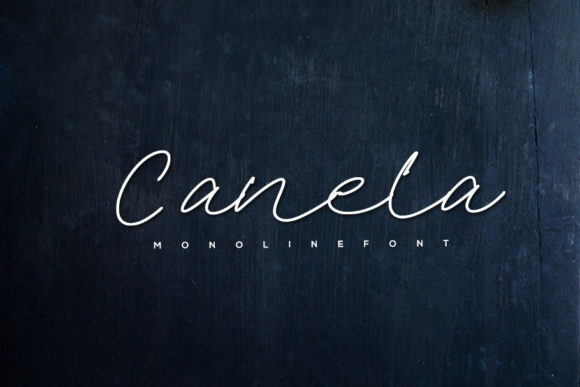
Canela: The Elegant Handwritten Font That Elevates Your Designs
Canela is a delicate, elegant, and flowing handwritten font that brings a touch of sophistication to any design. Its well-balanced characters and smooth curves make it a versatile choice for a wide range of creative projects. Whether you're designing a logo, crafting a social media post, or writing a personal letter, Canela adds a unique charm that stands out.
Why Choose Canela?
Canela's beauty lies in its simplicity and elegance. Unlike more rigid or formal fonts, Canela mimics the natural flow of handwriting, giving your text a personal and approachable feel. This makes it ideal for situations where you want to convey warmth, creativity, or individuality.
Its clean lines and balanced structure ensure readability without sacrificing style. This balance is especially important when you need your message to be both visually appealing and easy to understand.
Perfect for Personal Projects
If you're working on a personal project like a wedding invitation, birthday card, or journal, Canela can transform your work into something truly special. Imagine sending out a handcrafted invitation with Canela as the main font. It instantly adds a sense of care and thoughtfulness that printed invitations often lack.
Even if you're just writing in a notebook or creating digital art, using Canela can help you express yourself more creatively. It’s not just about looking good—it’s about feeling good while you create.
Professional Use Cases for Canela
Canela isn't just for personal use. Many professionals have found it useful in their work. For example, marketers often use it in branding materials, such as logos, taglines, or promotional content. Its soft appearance helps create a friendly brand image that resonates with customers.
Freelancers and designers may also appreciate how Canela works well with other fonts. It pairs nicely with sans-serif fonts for contrast, making it a great choice for headings or call-to-action buttons. When used sparingly, it can draw attention without overwhelming the reader.
Bloggers and content creators can benefit from using Canela in their website headers or newsletter designs. It adds a touch of personality to their content and helps build a stronger connection with their audience.
Educational and Lifestyle Applications
Teachers and educators might find Canela useful for creating visually engaging lesson plans or classroom materials. Using it in titles or bullet points can make information more digestible and enjoyable for students.
For lifestyle bloggers or influencers, Canela can enhance the aesthetic of their posts. Whether it's a recipe blog, travel diary, or fashion guide, the font adds an artistic flair that complements the content.
Even small business owners can use Canela to improve the look of their signage, packaging, or marketing collateral. A well-designed storefront sign with Canela can attract more attention and leave a lasting impression.
What to Consider Before Using Canela
Before choosing Canela for your next project, there are a few things to keep in mind. First, consider the context of your design. While Canela is beautiful, it may not be suitable for all situations. For instance, it might not be the best choice for long blocks of text or documents that require strict formatting rules.
Also, think about the platform or medium you'll be using. Some fonts may not render correctly on certain devices or software. Always test how Canela looks across different screens and sizes to ensure it remains legible and aesthetically pleasing.
Real-World Examples of Canela in Action
Take a look at how others have used Canela successfully. One popular use case is in event invitations. A couple might choose Canela for their wedding invites to give them a more personal and romantic feel. Similarly, a boutique could use it on their website banners to create a warm and inviting atmosphere.
In the world of publishing, authors sometimes use Canela in book covers or chapter headings. It gives the text a gentle, literary feel that appeals to readers who enjoy a more classic or artistic style.
Another great example is in social media. Influencers often use Canela in their captions or story texts to add a bit of flair and character. It helps their content stand out in a sea of uniform posts.
Getting Started with Canela
If you're new to using Canela, start by experimenting with different layouts and color combinations. Try pairing it with contrasting colors or fonts to see what works best. You can also explore various weights or styles if available, to add more depth to your designs.
Don’t be afraid to make mistakes. Typography is an art form, and finding the right balance takes time. As you become more familiar with Canela, you’ll start to notice how it enhances your creative projects in subtle yet meaningful ways.
Whether you're a designer, marketer, educator, or just someone who loves beautiful typography, Canela offers a unique opportunity to bring your ideas to life with elegance and grace. So go ahead—add it to your creative toolkit and let your imagination run wild.